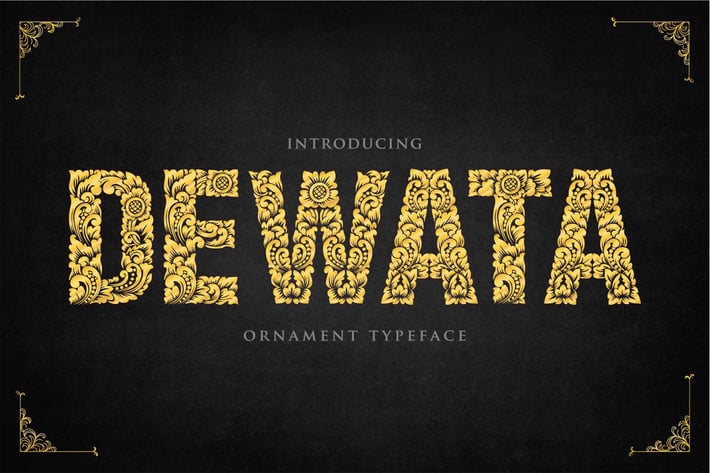
Dewata - Ornament Typeface
"Dewata" - A brand new "tSans Serif with both modern and Balinesse Ornament.
Dewata is a very versatile font, covering a wide range project types, from bold magazine imagery , to wedding invitations, to branding, poster design and so much more.